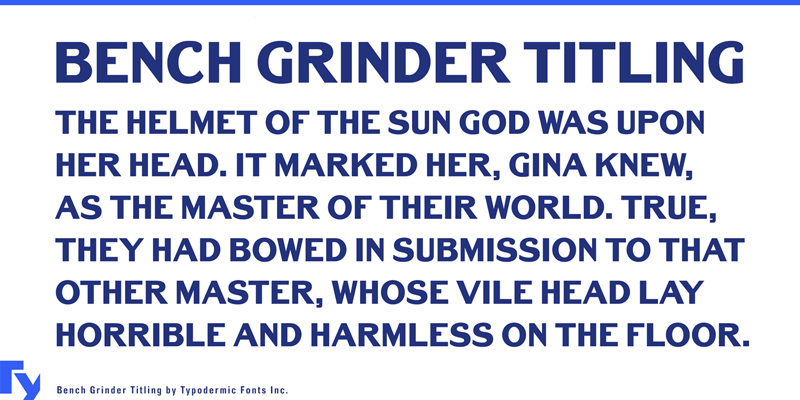
Bench Grinder was inspired by the letterforms of 19th century metal headline type but without the slab-serifs. The result is a unique display typeface, demented but with a sense of familiarity. For a version with lowercase, check out the regular version of Bench Grinder. http://typodermicfonts.com/bench-grinder/ This font includes a license that allows free commercial use: sometimes referred to as a desktop license. This allows you to install the font on a computer and use it to create posters, web graphics, game graphics, t-shirts, videos, signs, logos and more. Read the license agreement for details. If you'd like to embed this font in an app, ebook, on the web or anything that's not covered by the desktop license agreement, visit the link below. You'll find distributors who offer different types of licenses or you can contact me for help. http://typodermicfonts.com/bench-grinder-titling/ |